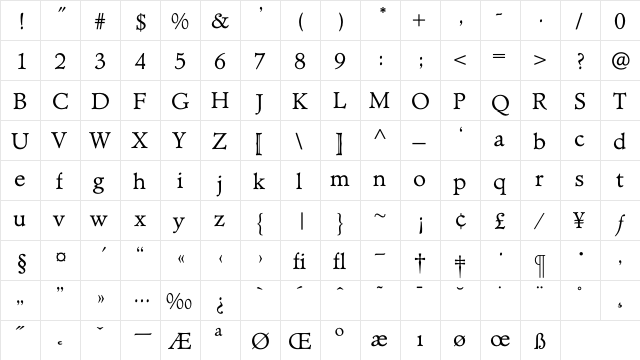
TCAdministerBook Regular Font Preview
TCAdministerBook Regular
TCAdministerBook Regular Font Details
Design Context for TCAdministerBook Typeface
TCAdministerBook takes a measured approach to typography — its balanced proportions and neutral character make it a reliable workhorse for both digital and print work.